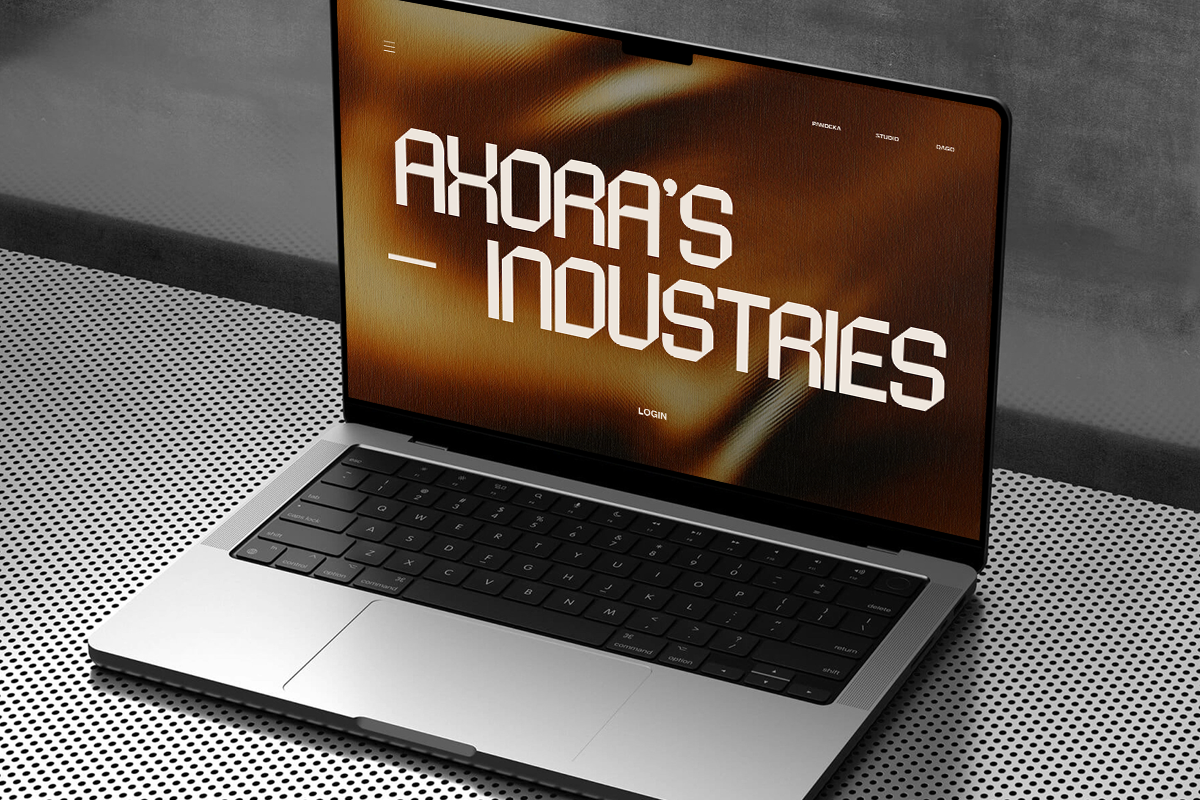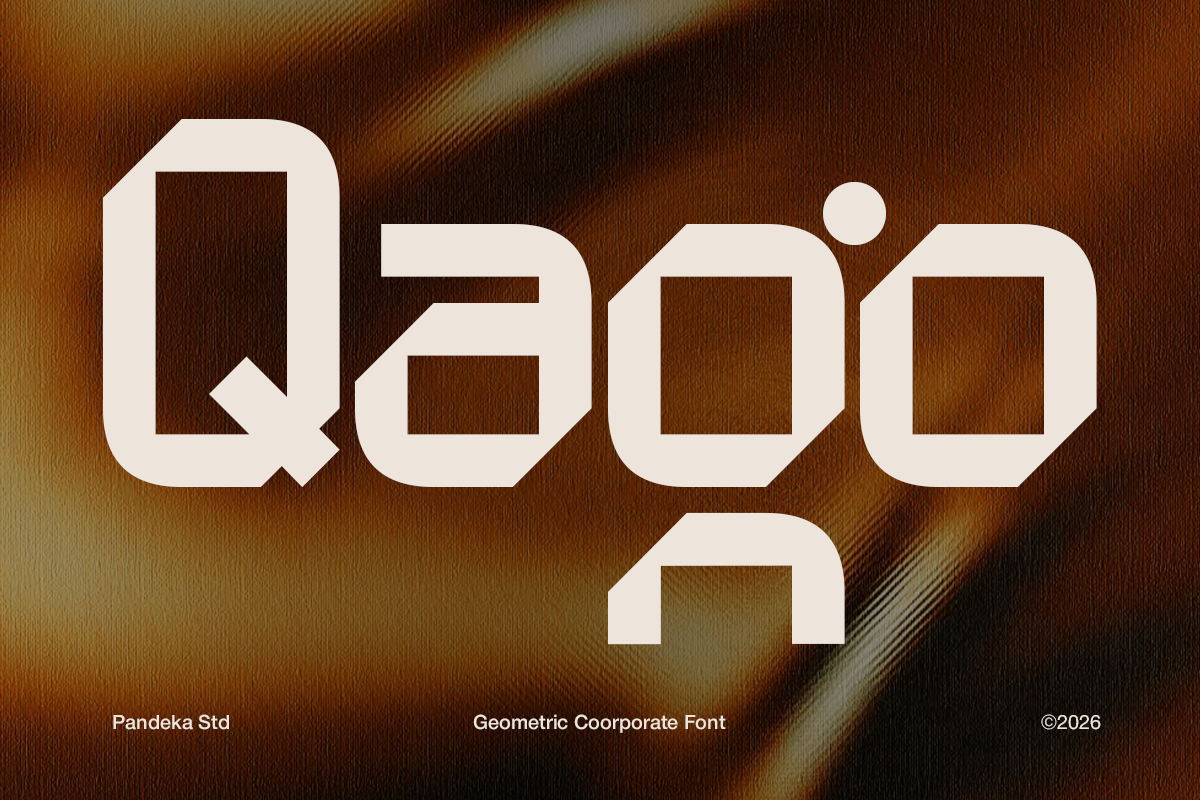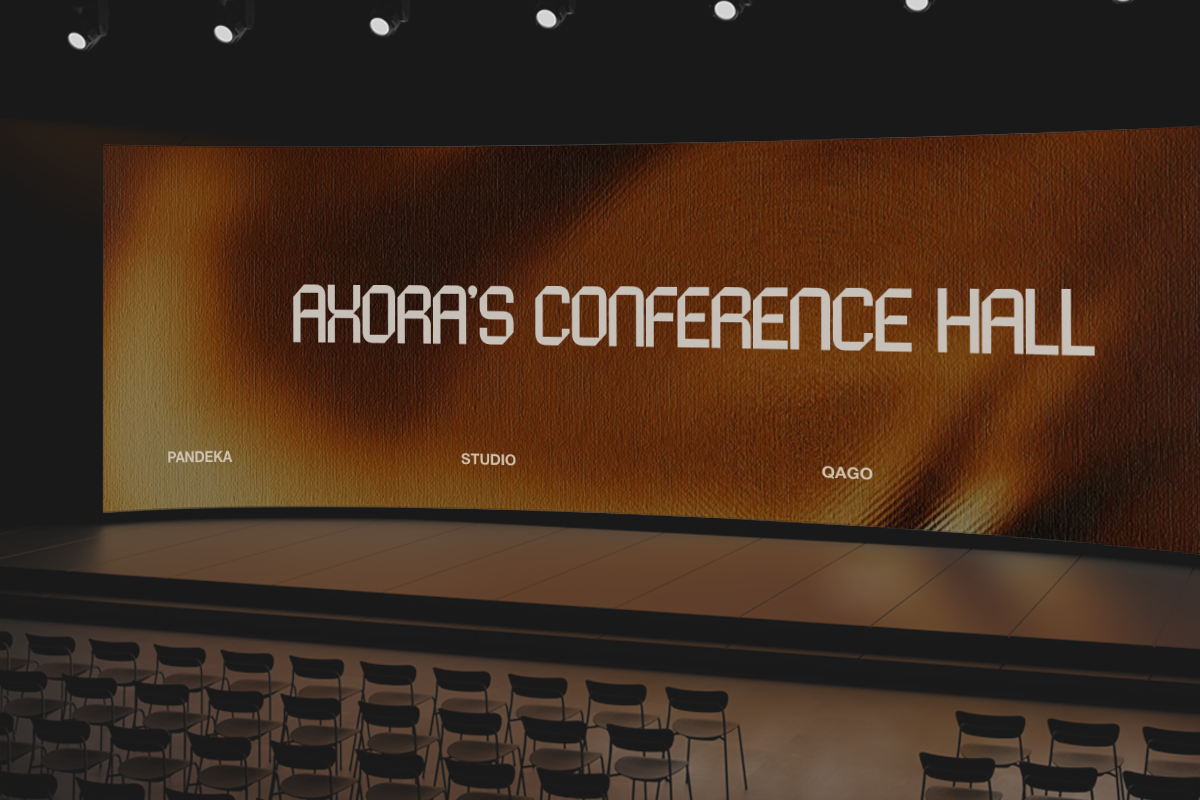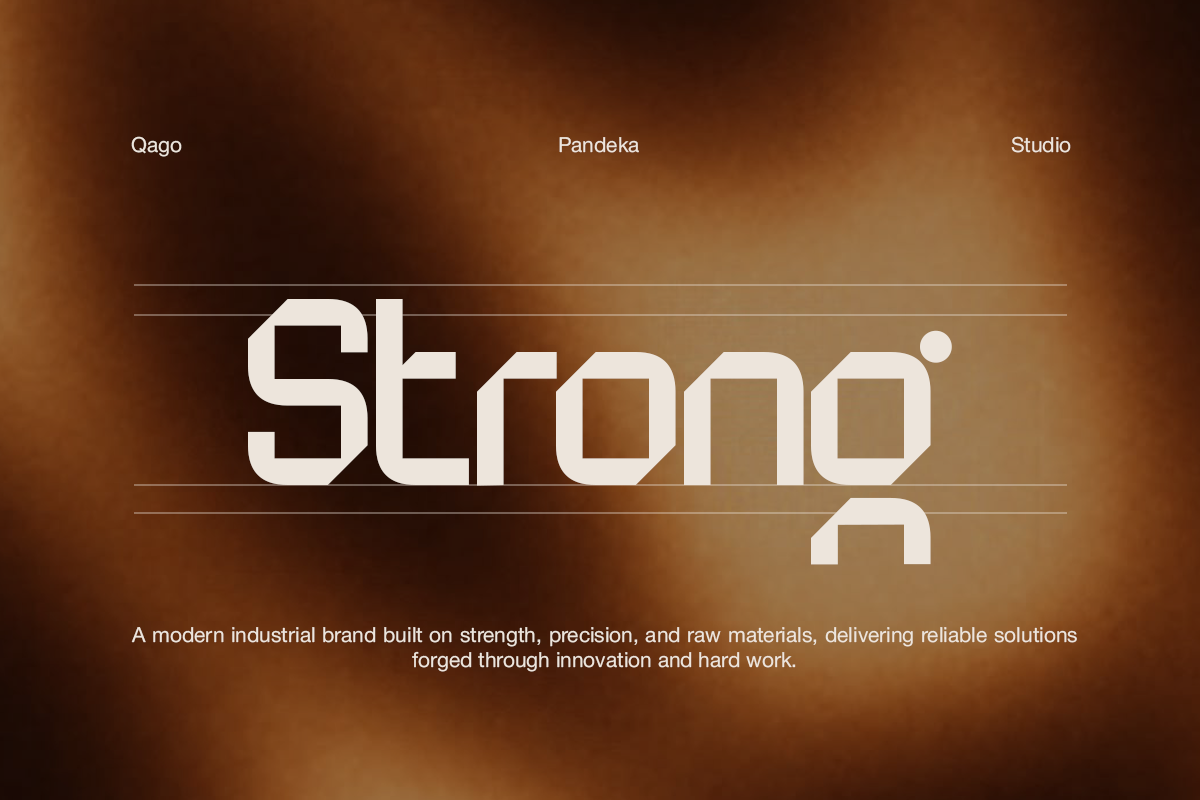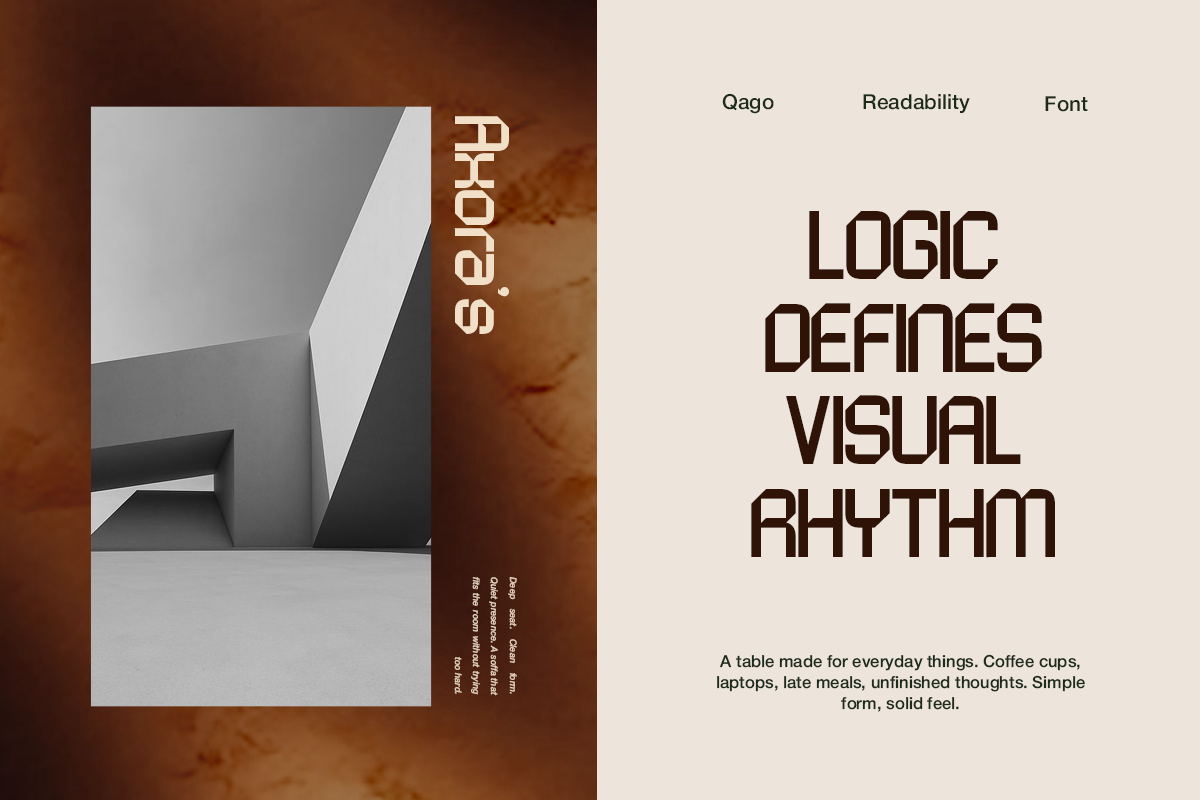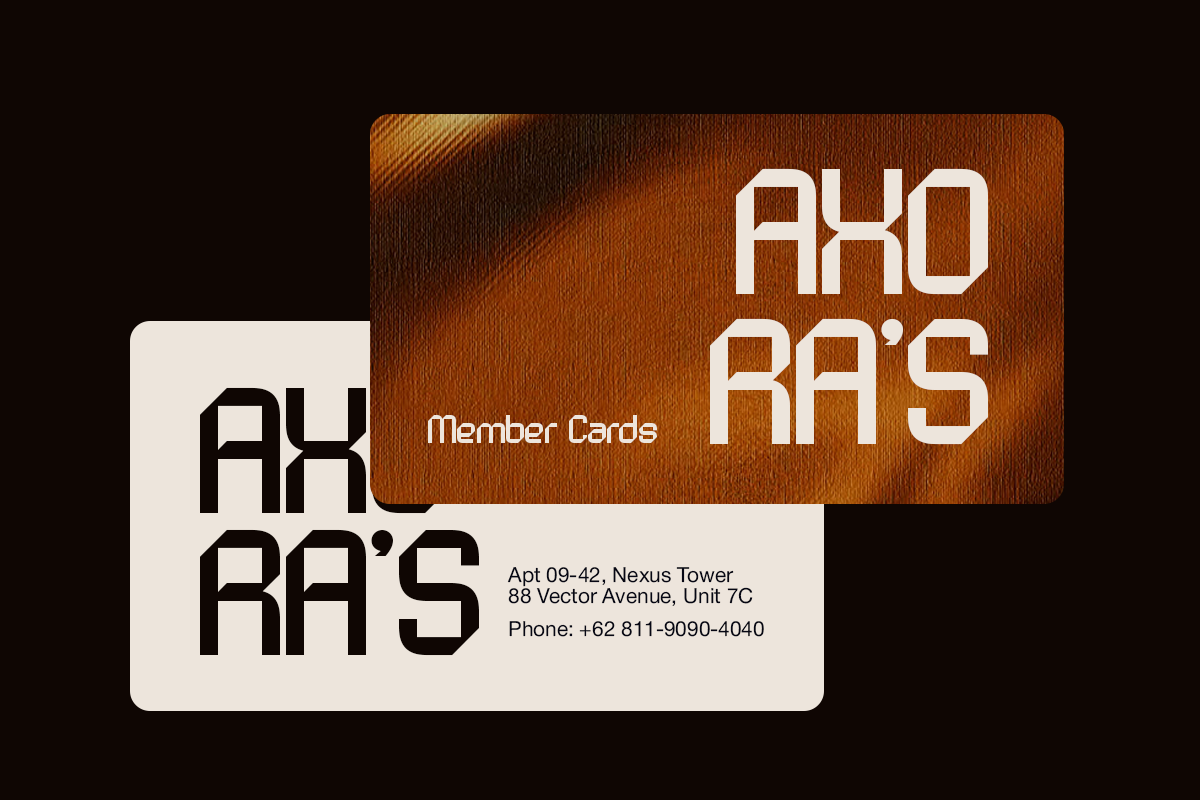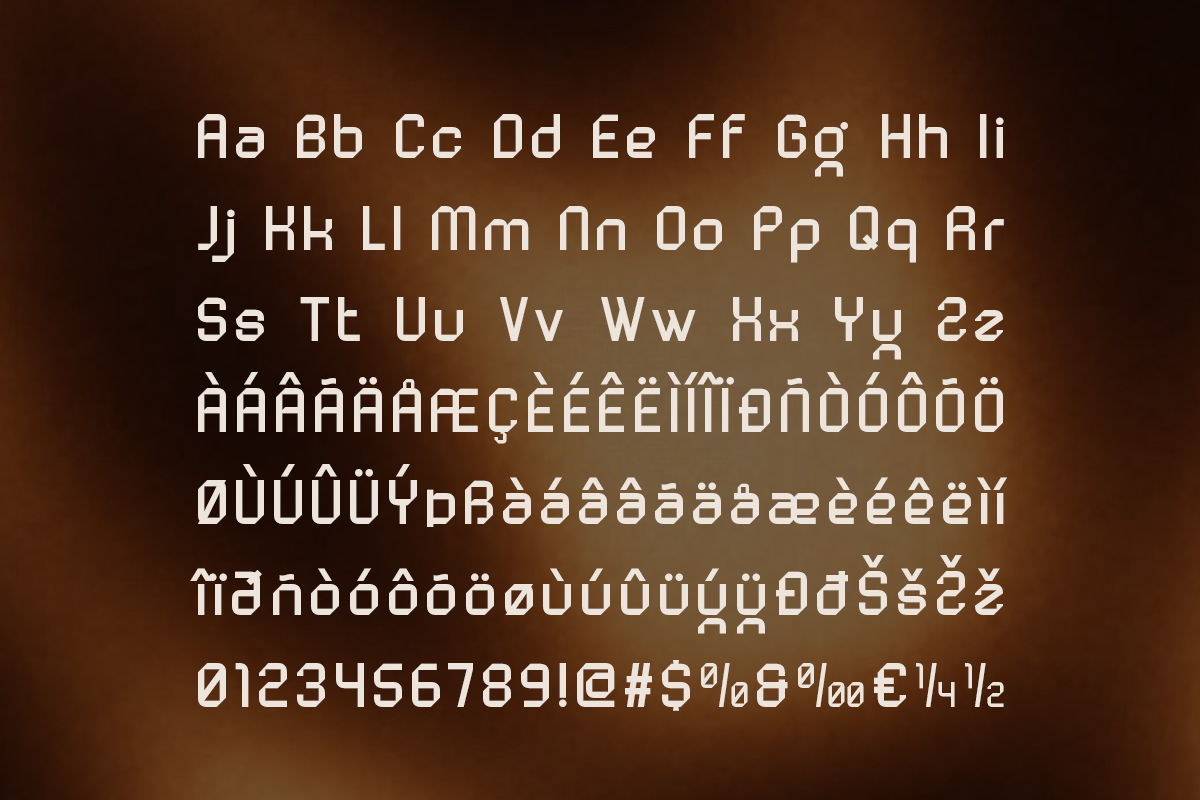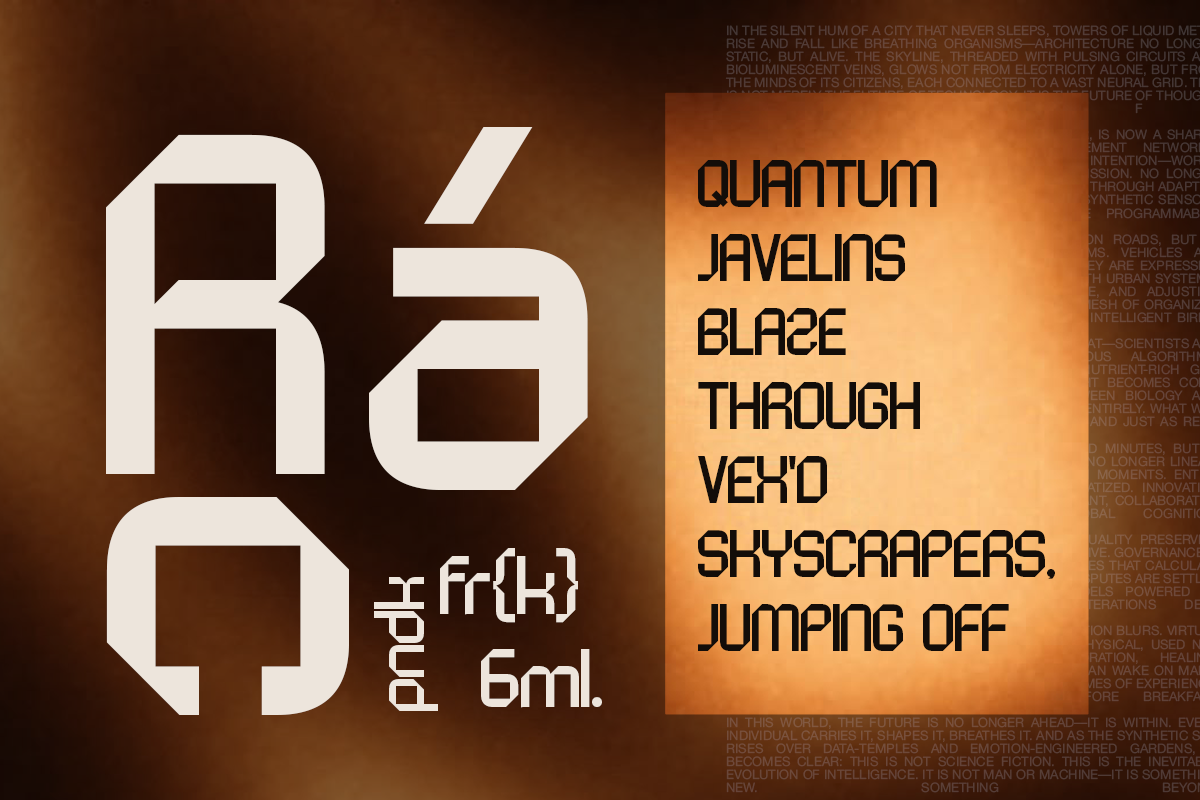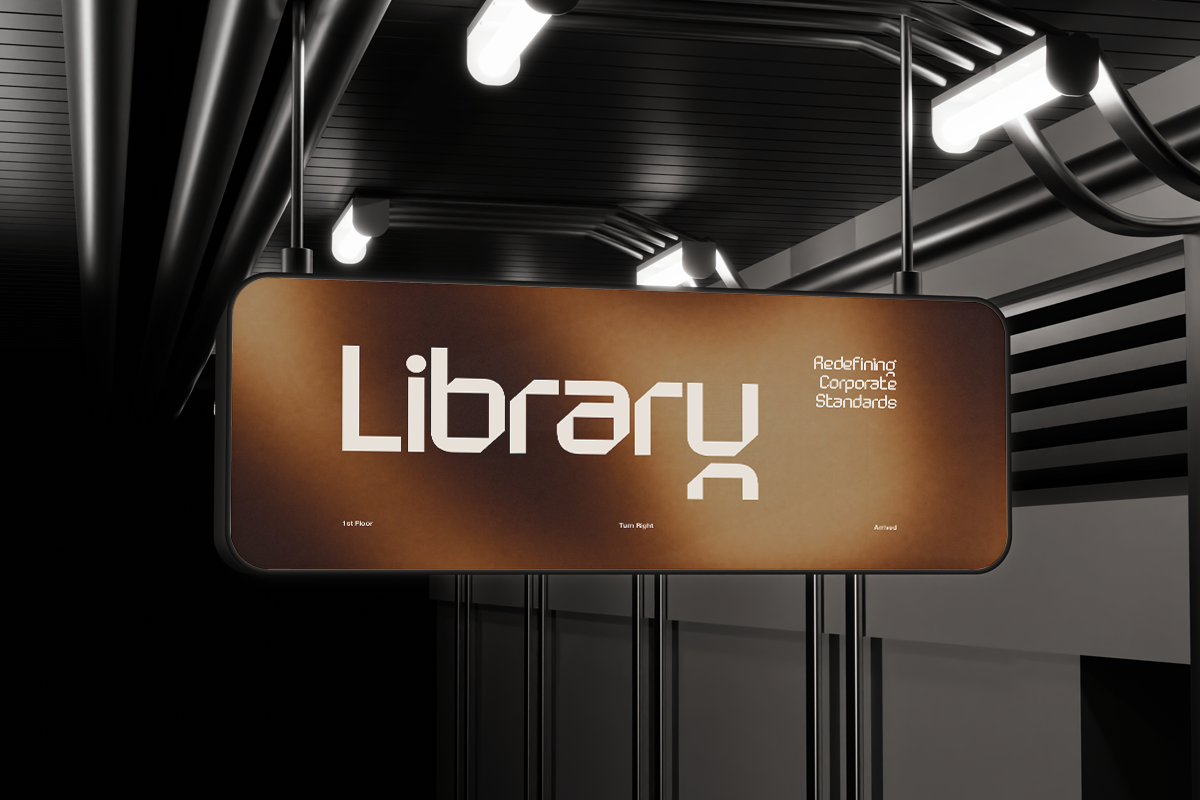
Qago - Geometric Corporate Font
Qago is a geometric corporate font with a futuristic, structured character and distinctive angular letterforms. Its clean construction gives headlines, logos, and brand identities a strong visual presence while maintaining a modern and professional feel. Qago works especially well for corporate, technology, architecture, industrial, and contemporary branding projects.
This font comes in 2 styles: Regular & Slant. It includes uppercase and lowercase letters, accented characters, numbers, and punctuation, making it versatile for both display and branding applications. Use Qago for logos, corporate identities, signage, posters, presentations, conference graphics, websites, digital interfaces, and other visual communication projects that need a bold geometric look.
2 Style: Regular and Slant
Full Character Set: Uppercase, lowercase, numbers, symbols, and punctuation